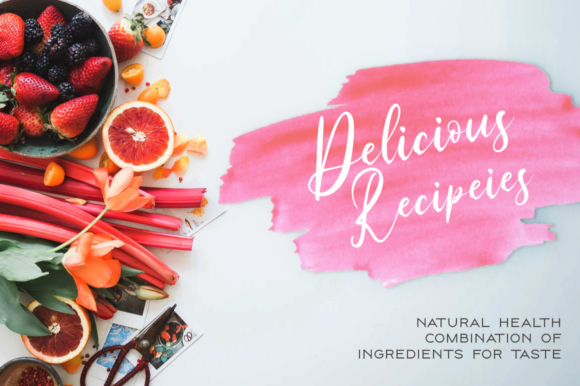
Austria Memories Font: A Gorgeous Font Duo for Creative Expression
In the world of typography, fonts play a crucial role in conveying emotions, setting tone, and creating visual appeal. For designers, artists, and writers, finding the perfect font can be a daunting task. However, if you’re looking for a match made in heaven, look no further than the Austria Memories Font. This stunning font duo combines a gorgeous script and a beautiful serif, working together in perfect harmony to ignite your creativity.
Austria Memories Font: A Perfect Blend of Script and Serif
The Austria Memories Font is a versatile and must-have font duo that consists of two complementary fonts: a beautiful script font and a classic serif font. The script font is elegant, fluid, and perfect for adding a touch of sophistication to your designs. On the other hand, the serif font is sturdy, reliable, and provides a beautiful contrast to the script font.
When used together, these two fonts create a stunning visual effect that can elevate your designs to the next level. The Austria Memories Font duo is perfect for a wide range of creative projects, from branding and advertising to packaging and digital media.
Key Features of Austria Memories Font
• Beautiful Script Font: The script font in the Austria Memories Font duo is elegant, cursive, and perfect for adding a touch of sophistication to your designs.
• Classic Serif Font: The serif font is sturdy, reliable, and provides a beautiful contrast to the script font, making it perfect for body text and headlines.
• Versatile: The Austria Memories Font duo is versatile and can be used for a wide range of creative projects, from branding and advertising to packaging and digital media.
• High-Quality: The Austria Memories Font duo is of high quality, with crisp and clear lines that will make your designs stand out.
10 Creative Ways to Use Austria Memories Font
The Austria Memories Font duo is a versatile font that can be used in a variety of creative projects. Here are 10 ideas to get you started:
• Branding and Logo Design: Use the Austria Memories Font duo to create a stunning logo and brand identity that will make your business stand out.
• Wedding Invitations: The elegant script font is perfect for creating beautiful wedding invitations that will set the tone for the big day.
• Social Media Graphics: Use the Austria Memories Font duo to create stunning social media graphics that will grab the attention of your followers.
• Packaging Design: The font duo is perfect for packaging design, adding a touch of elegance and sophistication to your products.
• Advertising: Use the Austria Memories Font duo to create eye-catching ads that will grab the attention of your target audience.
• Digital Media: The font duo is perfect for digital media, including video titles, blog posts, and more.
• Stationery: Use the Austria Memories Font duo to create beautiful stationery, including letterheads, business cards, and more.
• Signage: The font duo is perfect for signage, adding a touch of elegance and sophistication to your signs.
• Menu Design: Use the Austria Memories Font duo to create stunning menus that will make your restaurant or cafe stand out.
• Event Promotions: The font duo is perfect for event promotions, including flyers, posters, and more.
Benefits of Using Austria Memories Font
Using the Austria Memories Font duo can bring numerous benefits to your creative projects. Here are some of the advantages of using this stunning font duo:
• Unique and Creative: The Austria Memories Font duo is unique and creative, allowing you to add a touch of elegance and sophistication to your designs.
• Time-Saving: The font duo is easy to use and install, saving you time and effort in your creative projects.
• Versatile: The Austria Memories Font duo is versatile and can be used for a wide range of creative projects, making it a valuable addition to your font library.
• High-Quality: The font duo is of high quality, with crisp and clear lines that will make your designs stand out.
Tips and Tricks for Using Austria Memories Font
Here are some tips and tricks for using the Austria Memories Font duo:
• Experiment with Different Sizes: Experiment with different font sizes to create visual interest and hierarchy in your designs.
• Mix and Match: Mix and match the script and serif fonts to create a unique and creative look.
• Use for Headlines and Body Text: Use the serif font for body text and the script font for headlines to create a stunning visual effect.
• Add a Pop of Color: Add a pop of color to your designs by using a bold color for the script font or adding a colored background.